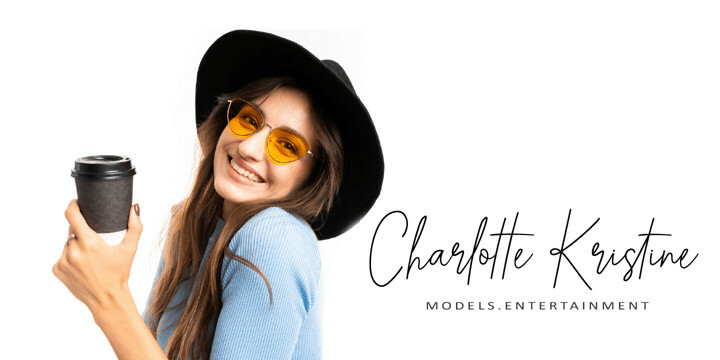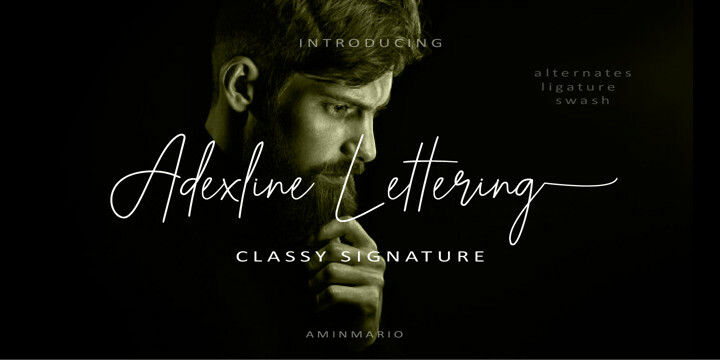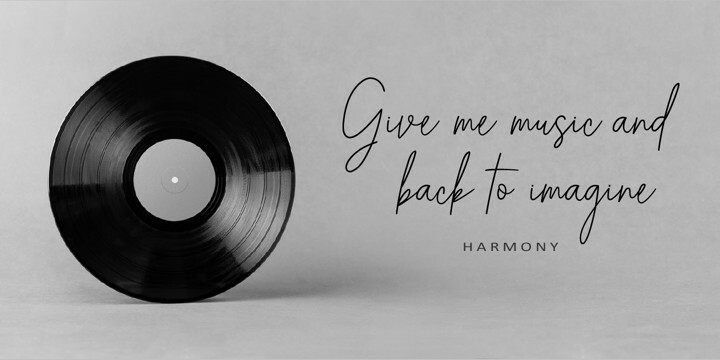
Adexline Lettering Font Family
Adexline Lettering Font FamilyAdexline Lettering is a new classy script with a dancing baseline stylish handwritten , classic script style make this font looks natural, classy and perfect for any awesome project that need hand writing taste.
This is suitable for logos, watermarks on photography, signatures, branding, advertisement, quotes, invitations, stationery, wedding design,album covers, business cards, clothing, magazines, posters, and more!